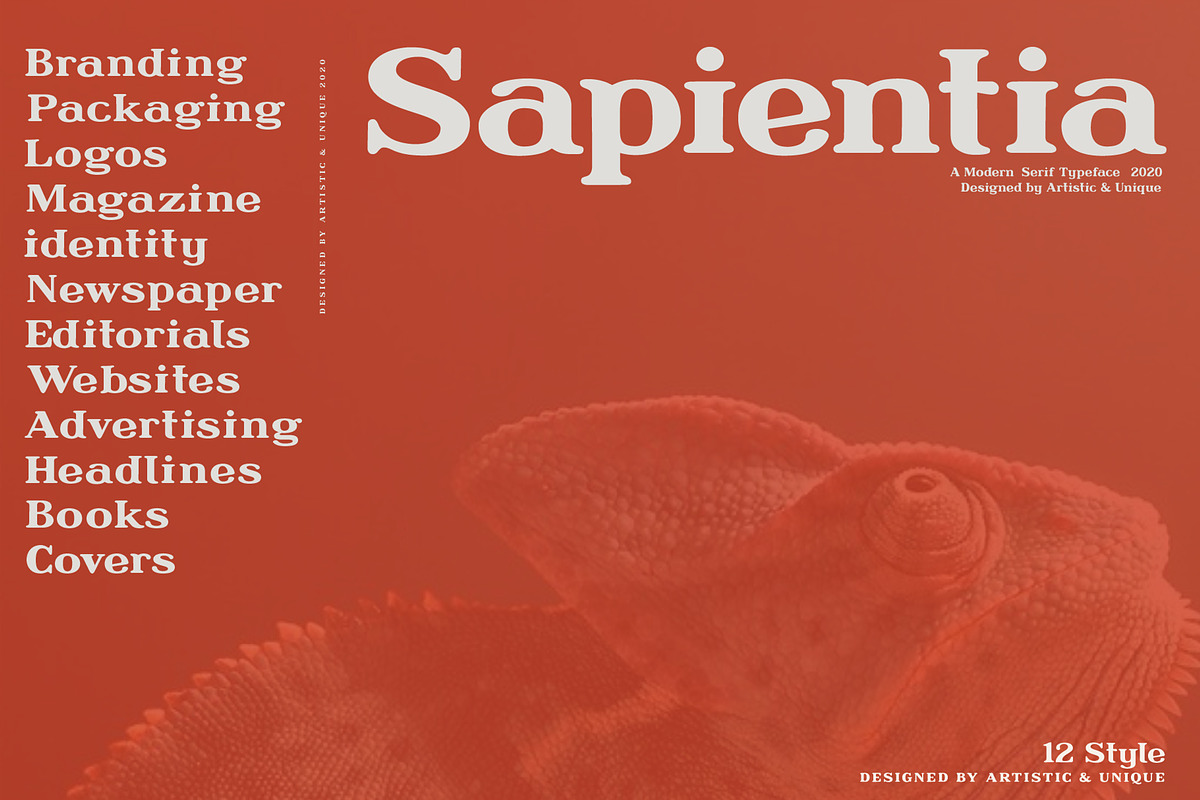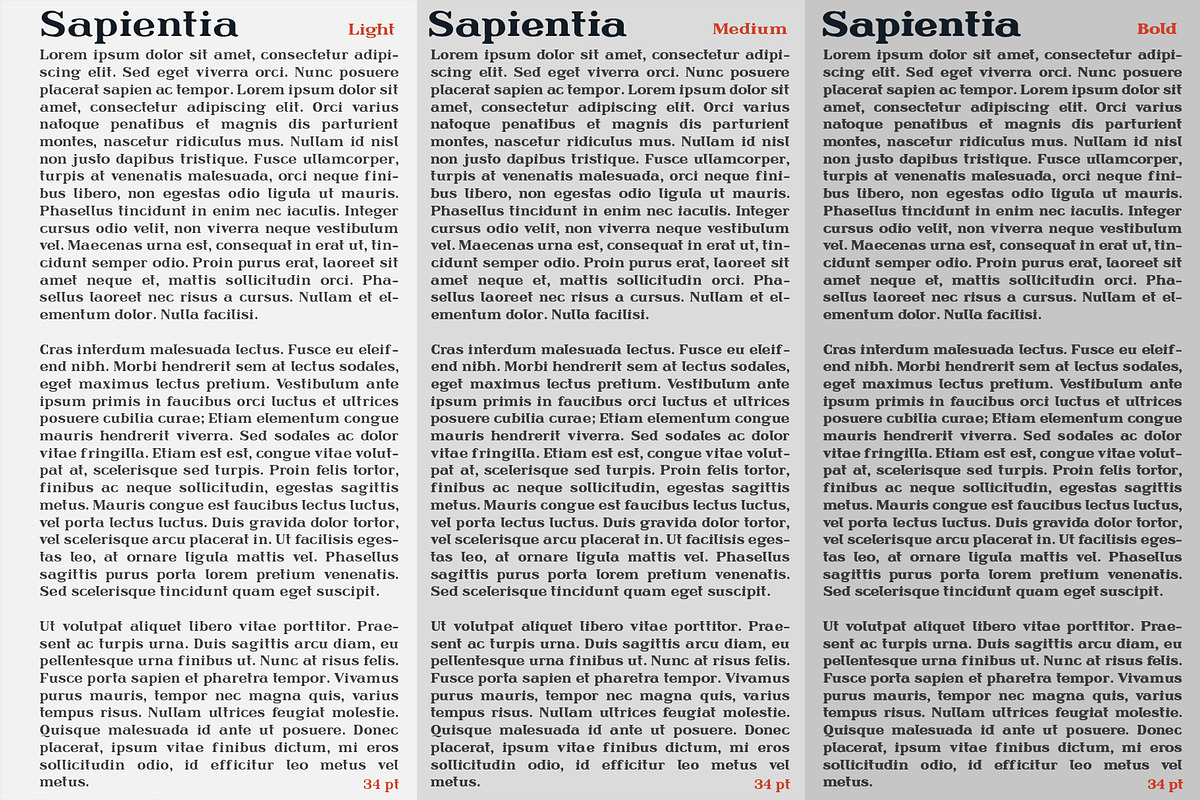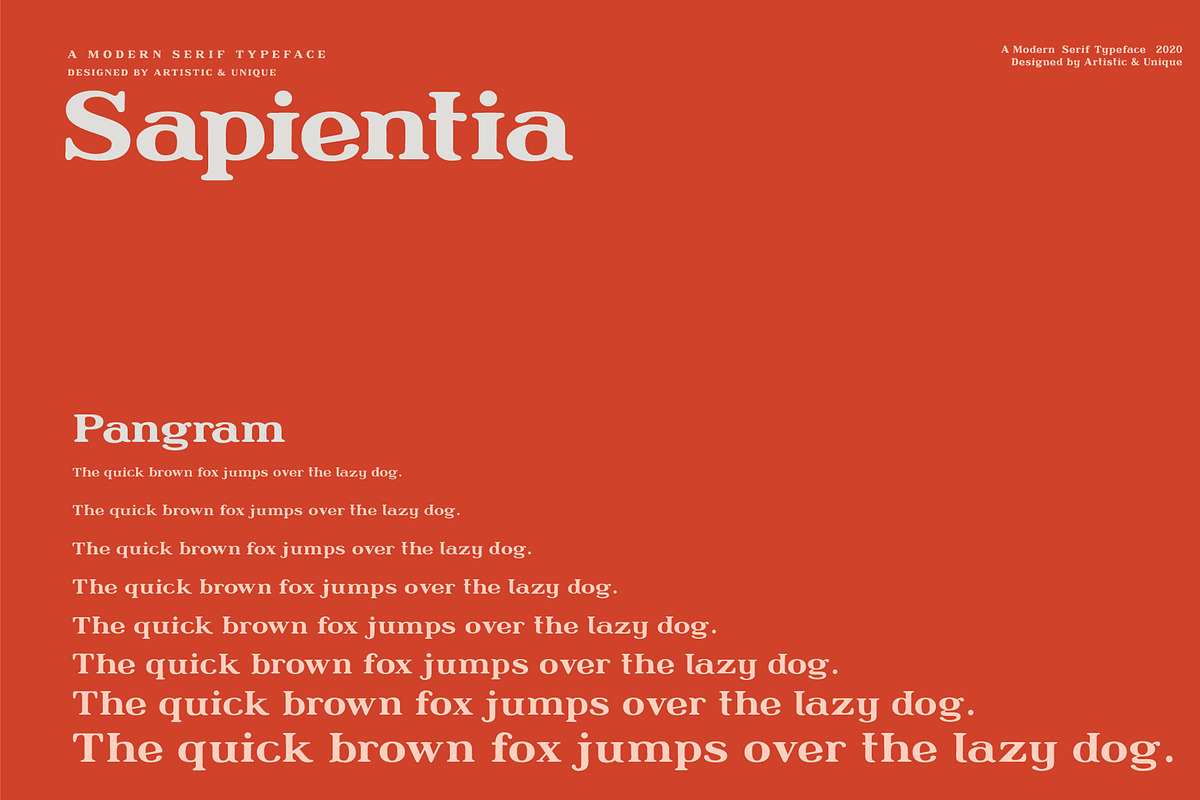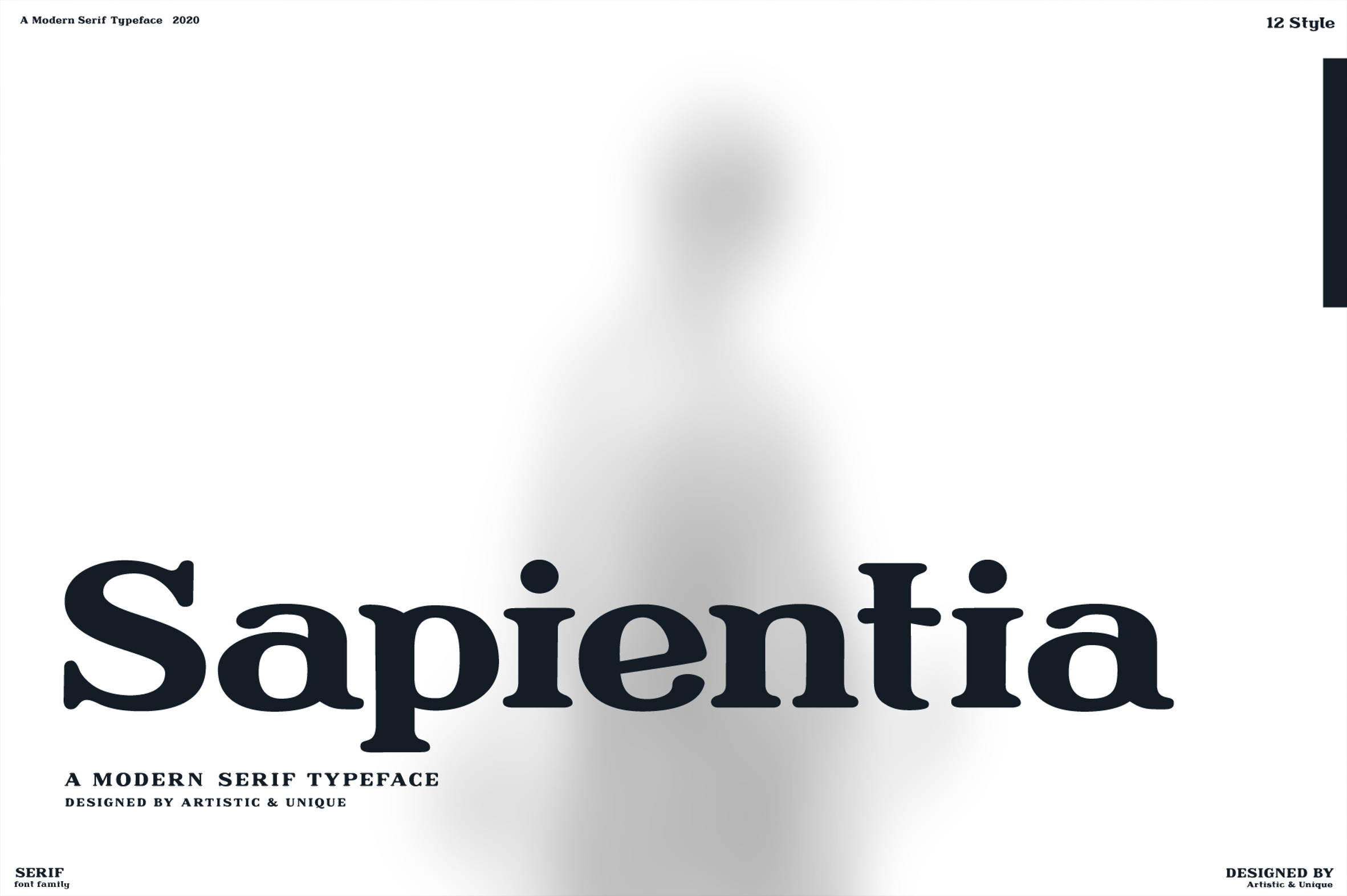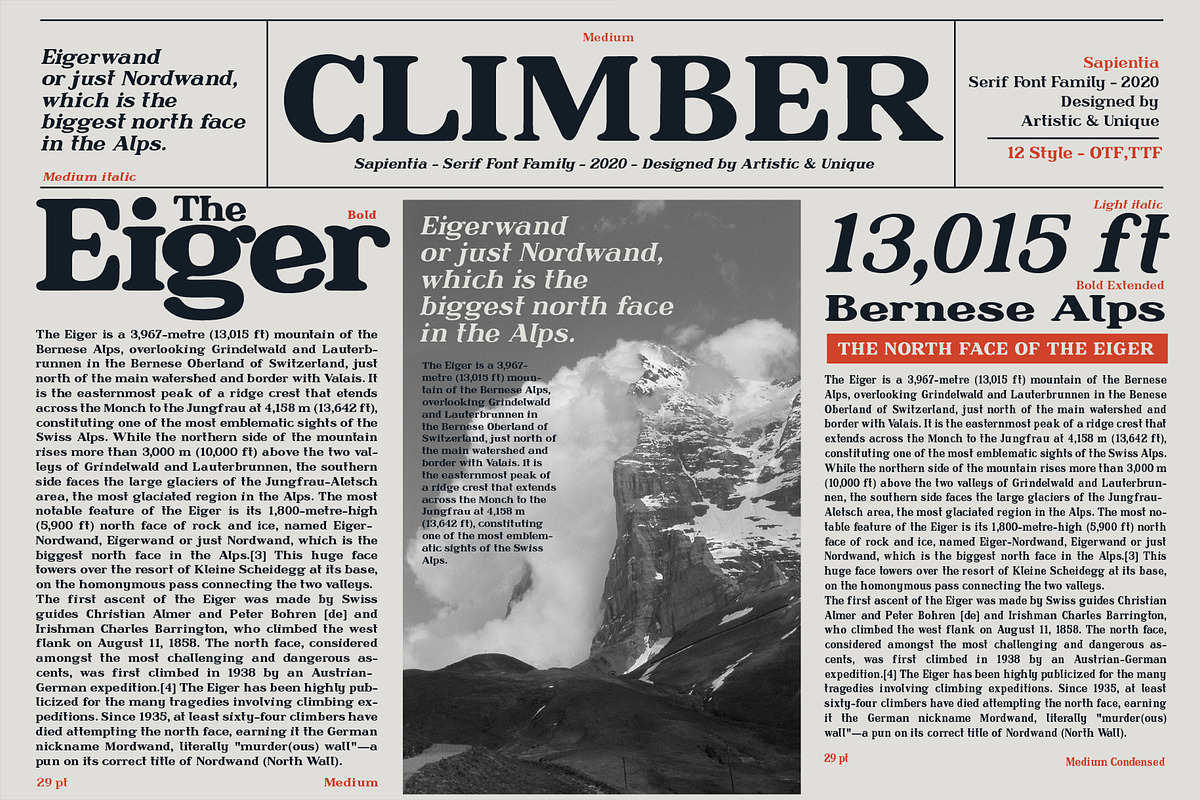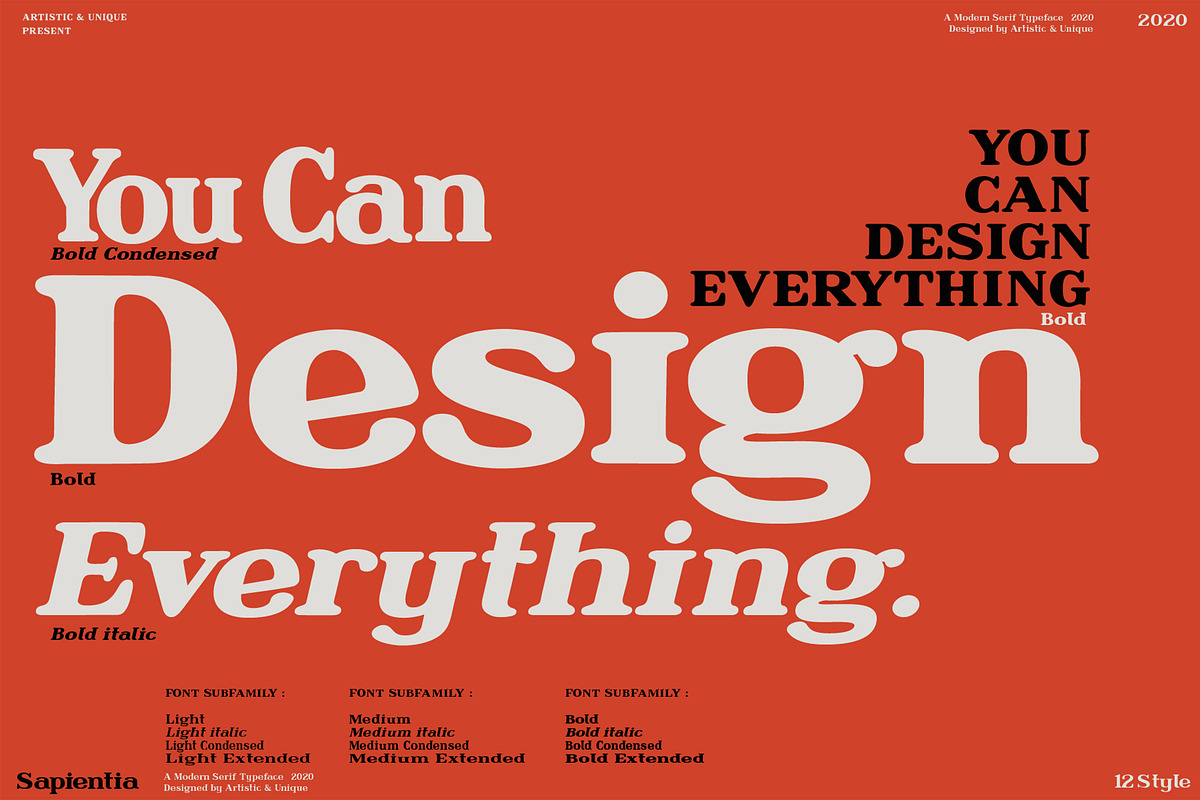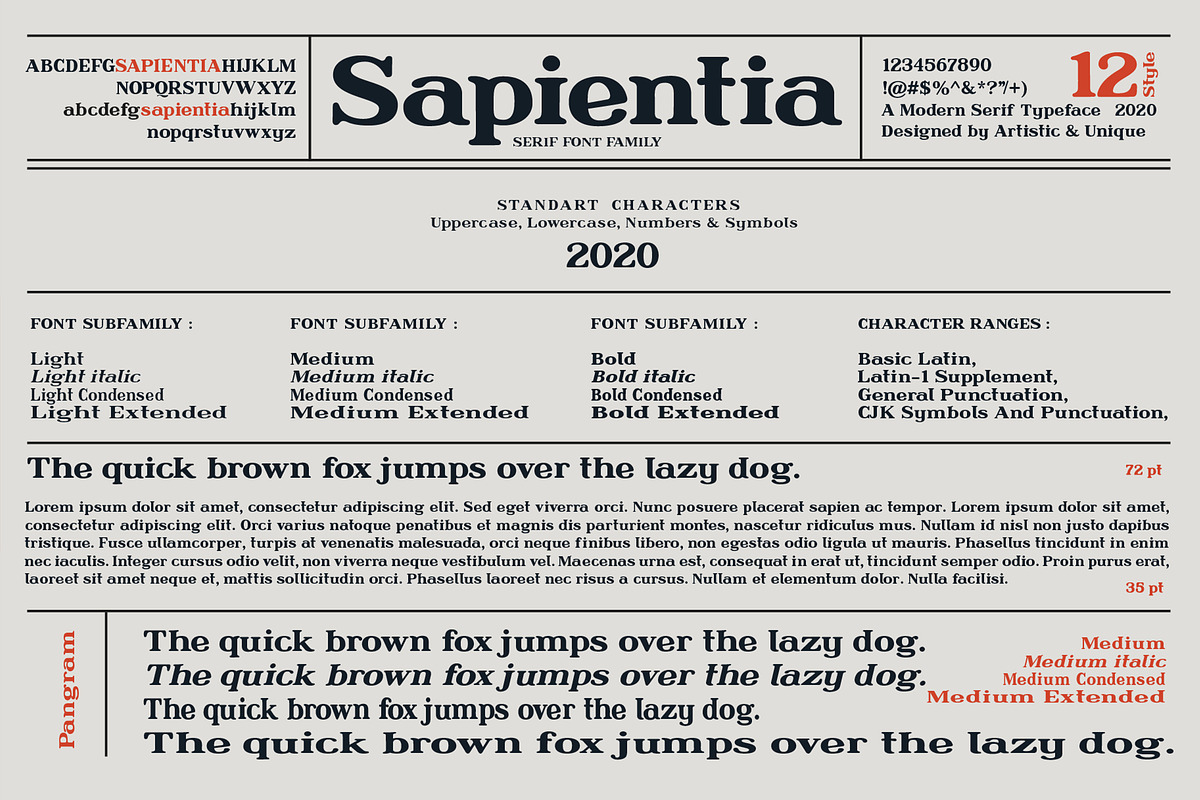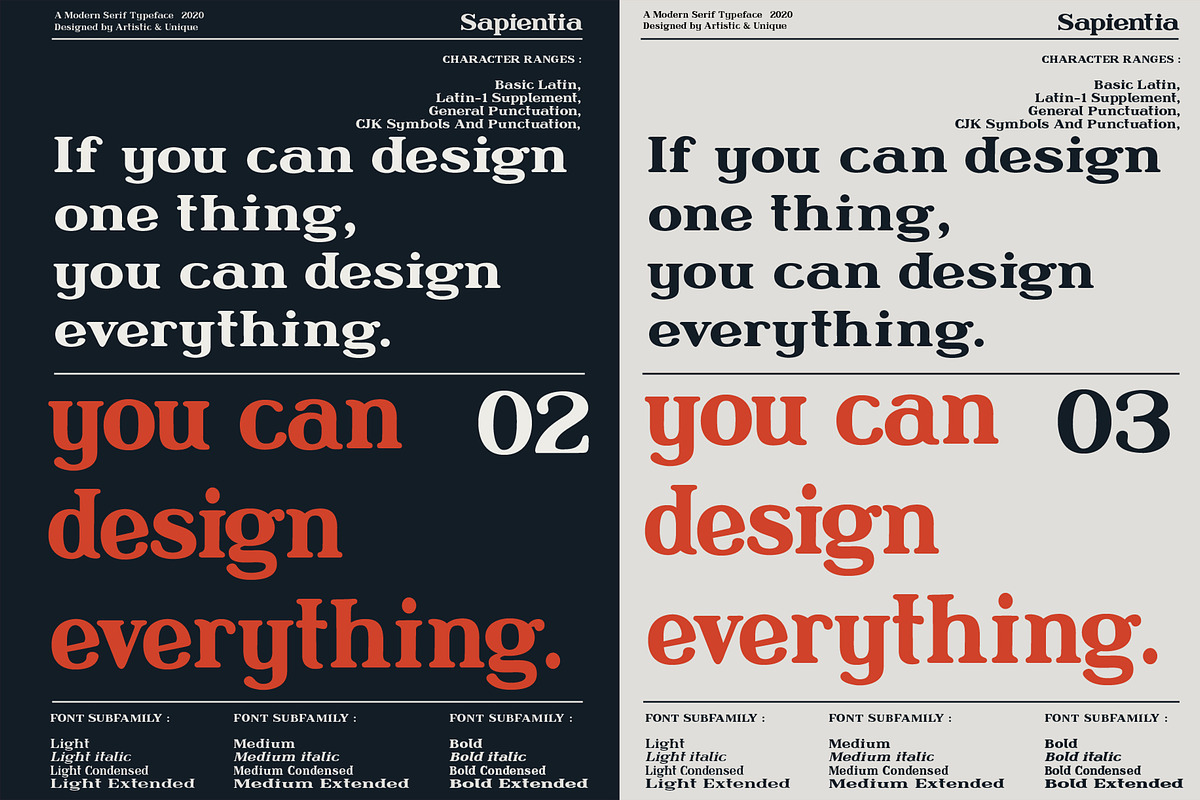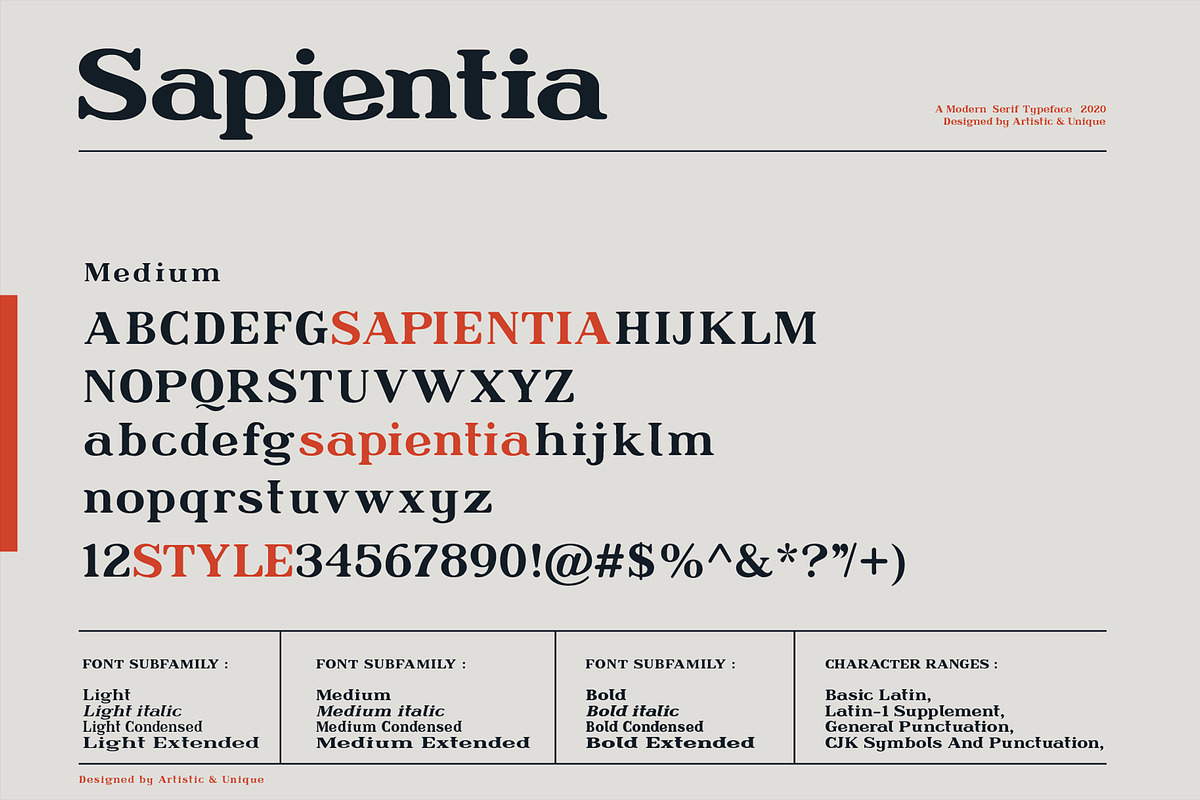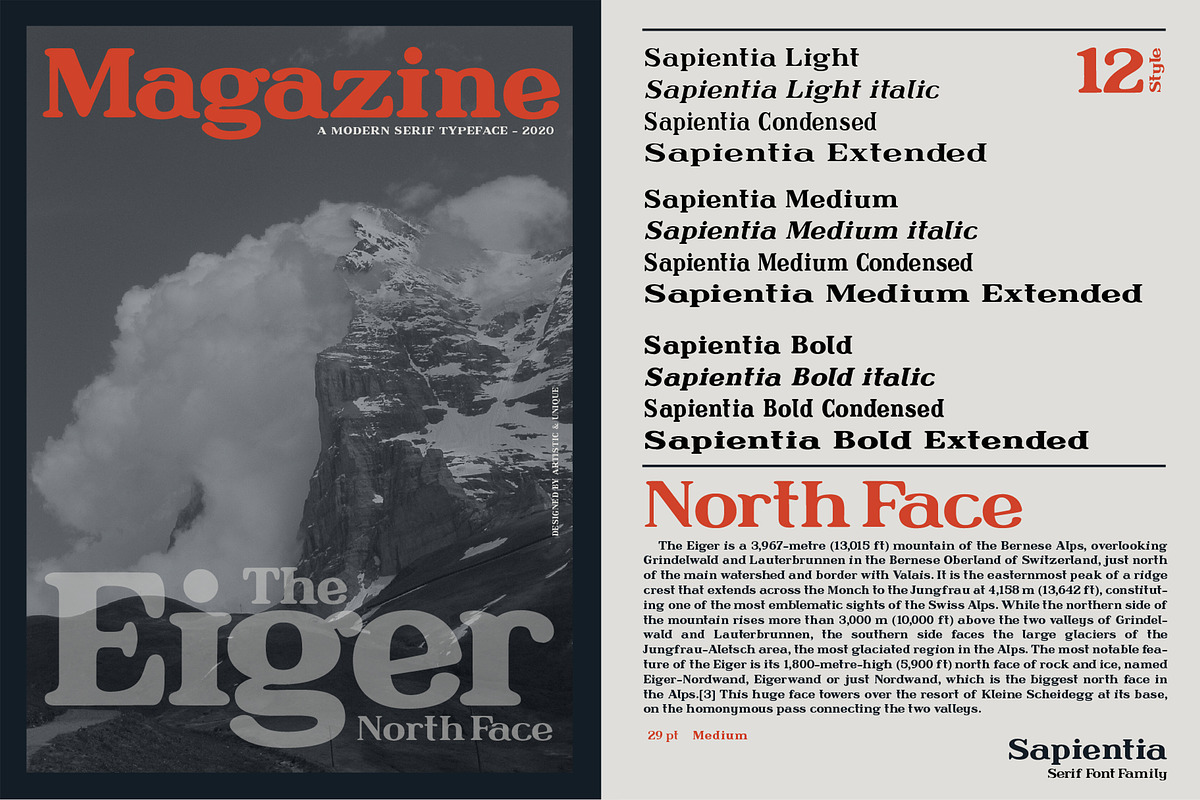
Sapientia - Serif Font Family
Sapientia, it is inspired by the old-style serif font and the character structures of today's modern serif fonts. The Sapientia serif font family has an elegant character with its soft curves. The old-style serif style combines with the elements of modern aesthetics, making it suitable for today's uses. This feature makes Sapientia a versatile family that can be used in many different design projects.
If you want to try a modern or classic, elegant look, this font offers a wide variety of styles to help you discover the best mood for your projects, from body text to large titles, from classic styles to modern and bold styles.
It is very suitable for books and magazines, magazine covers, editorials, headlines, websites, logos, invitations, branding, advertising and more.